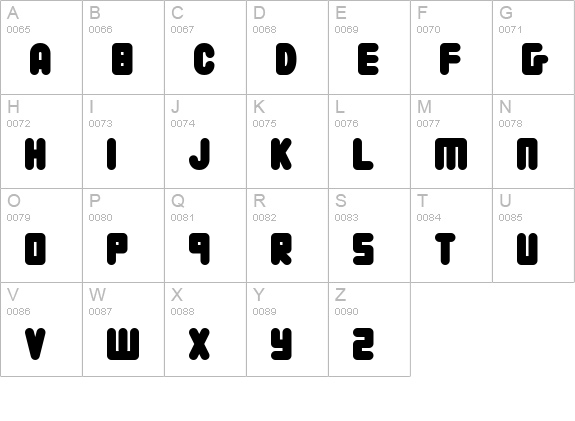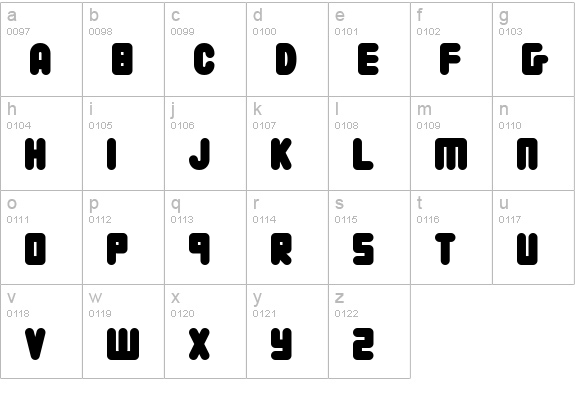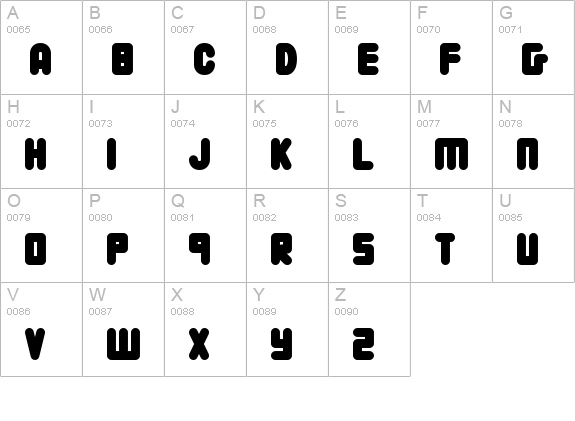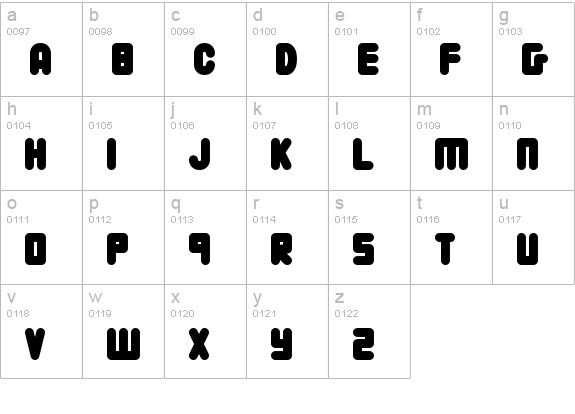
The 222 03 font is a stylish and versatile typeface that is sure to make a statement in any design project. With its elegant curves and clean lines, this font exudes a sense of sophistication and modernity. Whether you are creating a logo, website, or any other creative project, the 222 03 font is the perfect choice to add a touch of class and professionalism. The best part? This amazing font is completely free to download at FontsMarket.com! You can easily access this font and start using it in your projects right away without having to worry about any costs. Don't miss out on the opportunity to enhance your designs with the beautiful 222 03 font - download it now and take your creations to the next level!